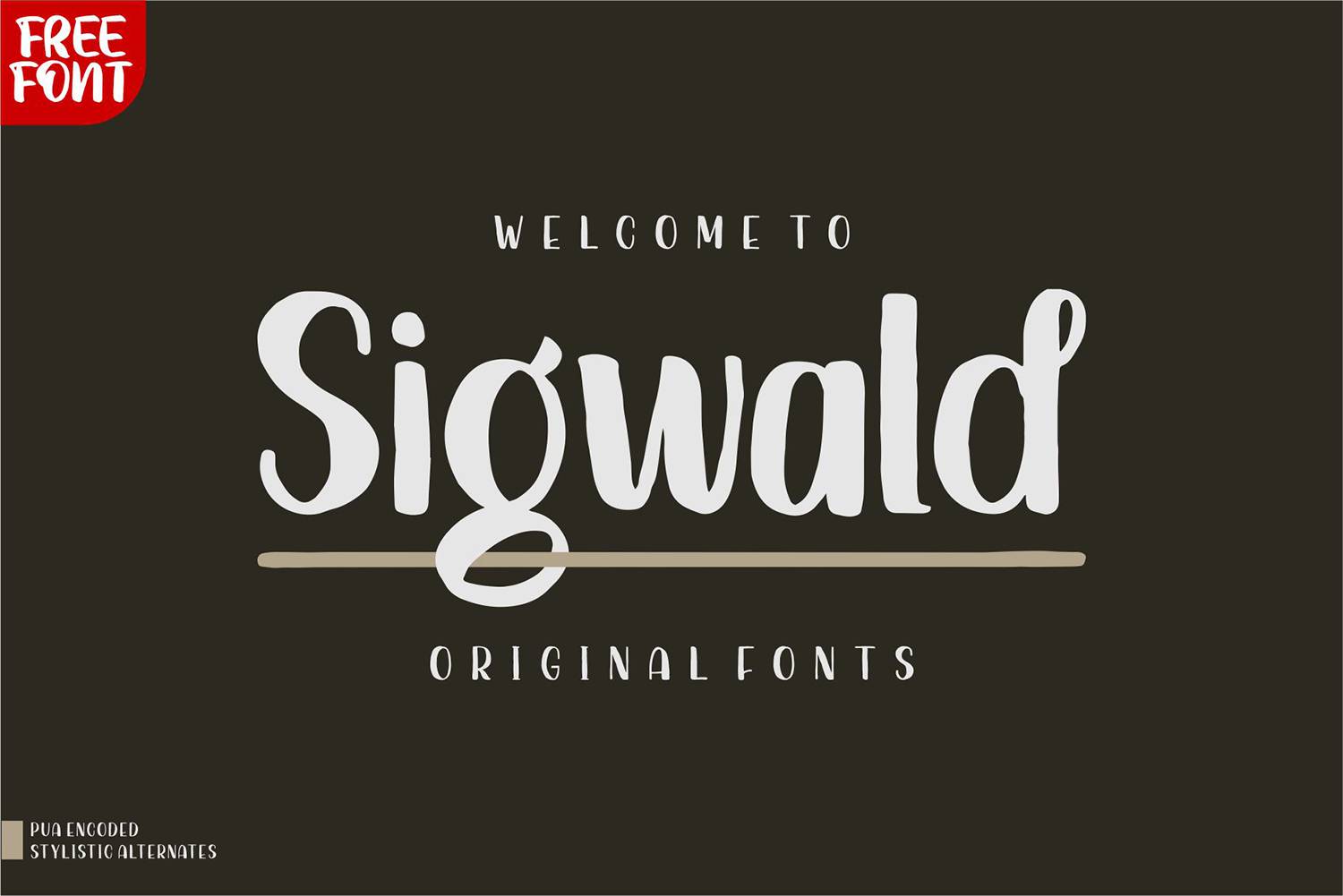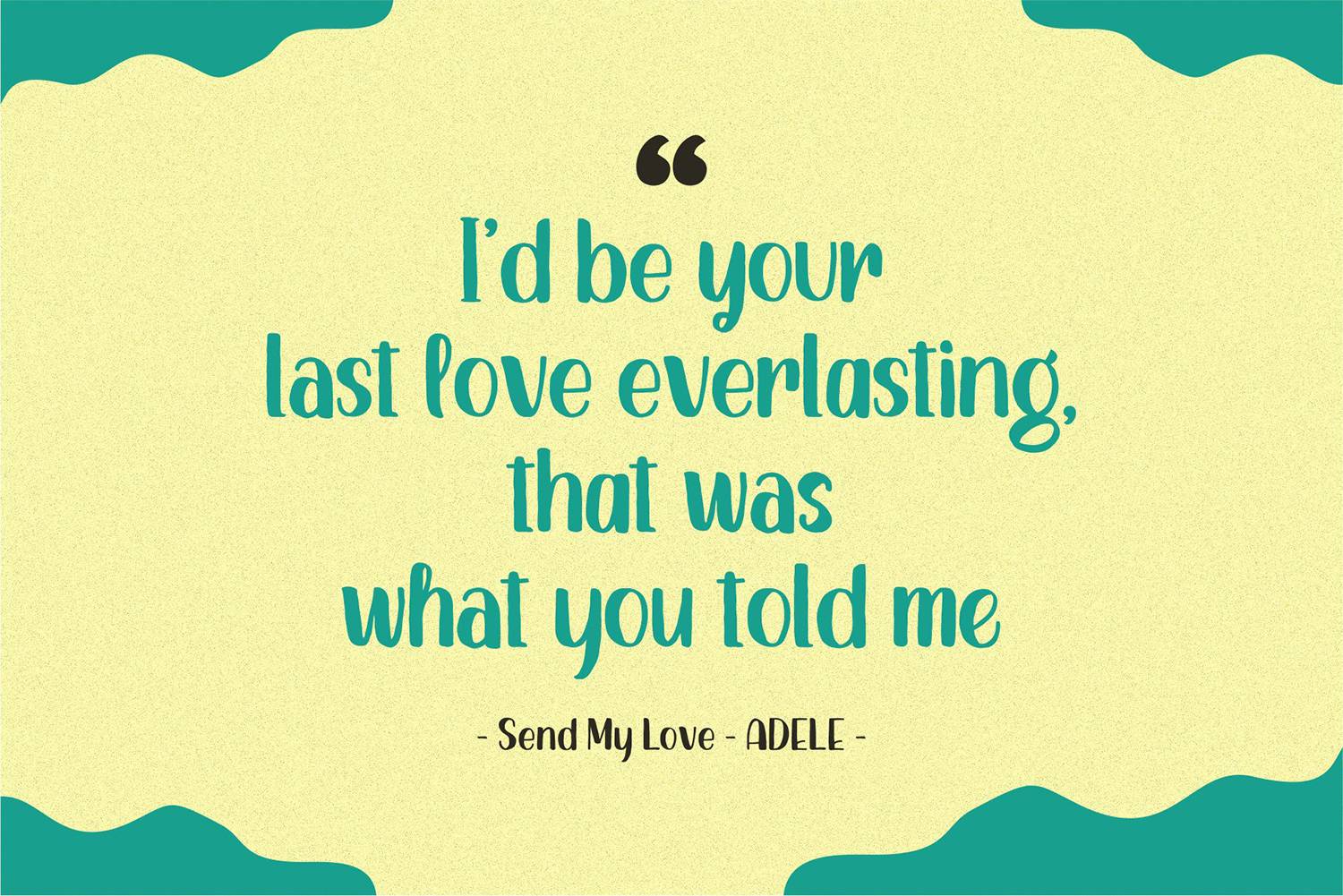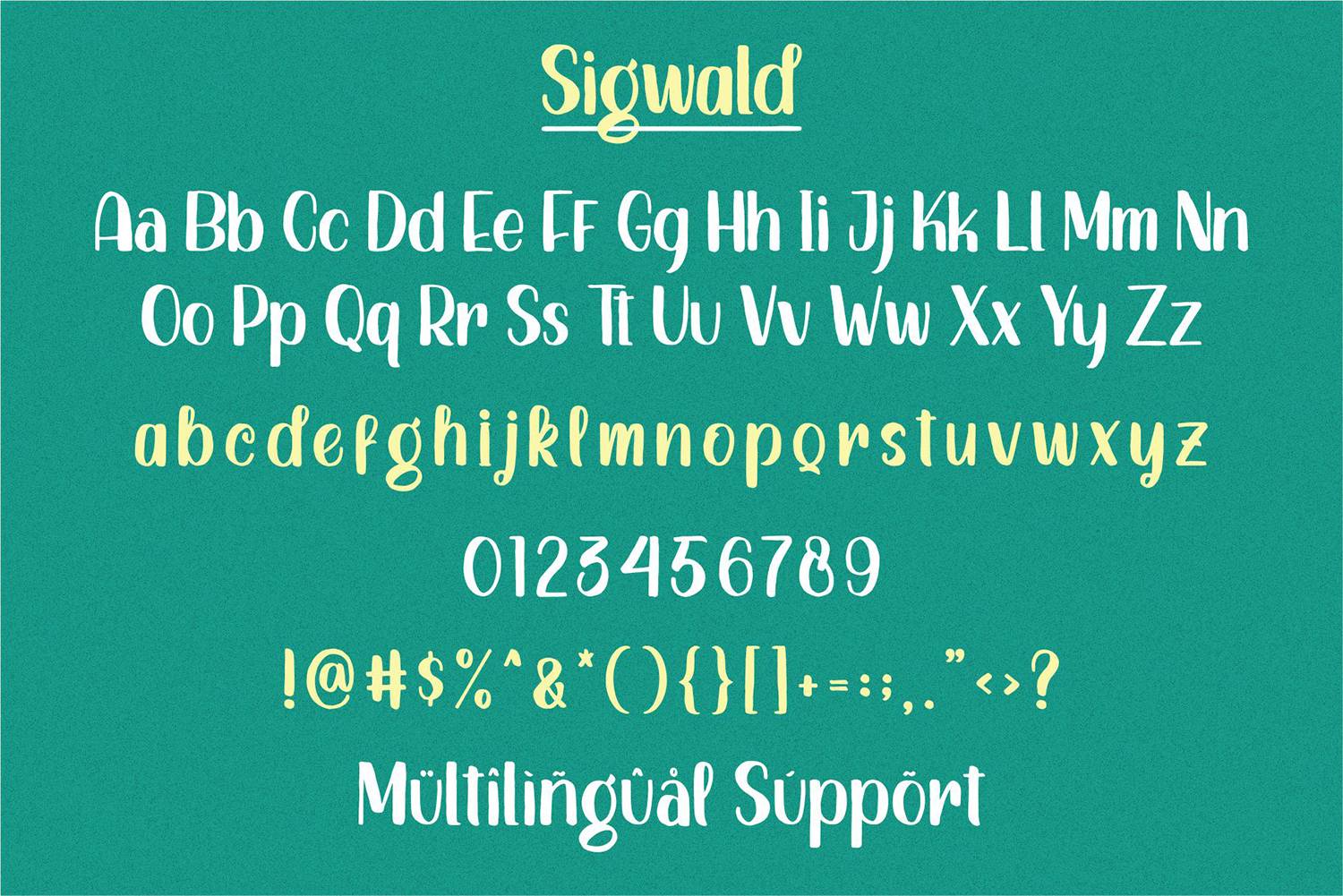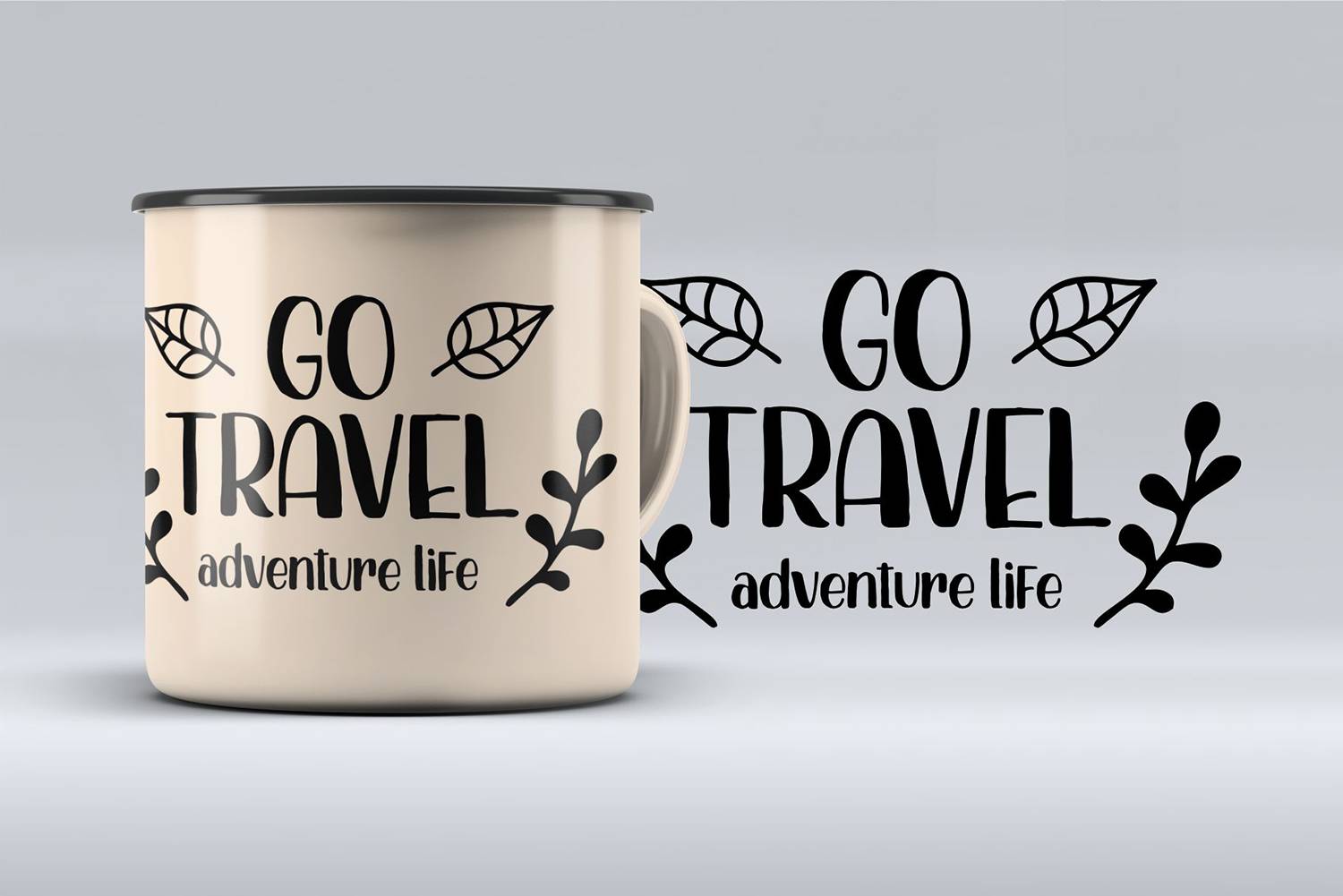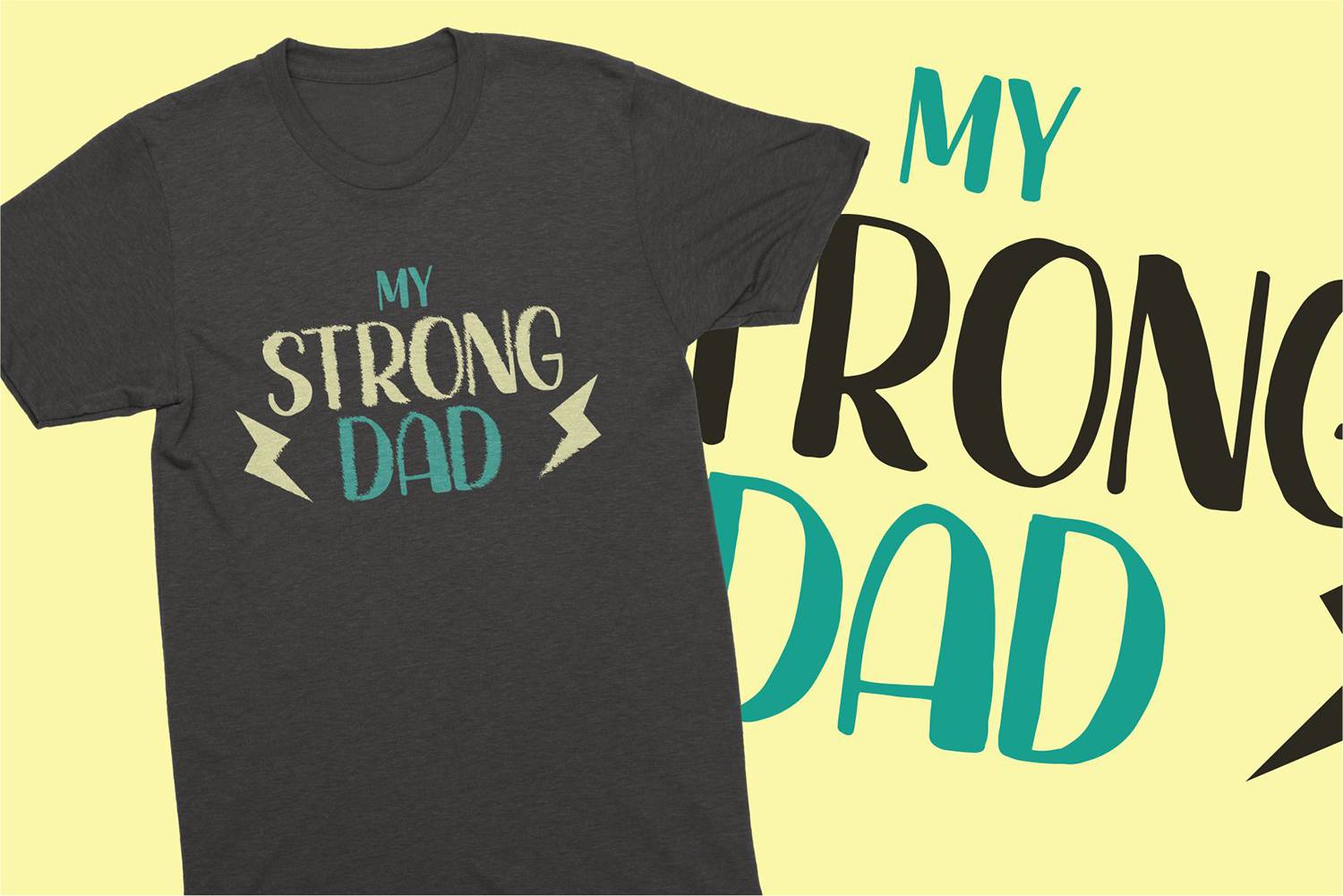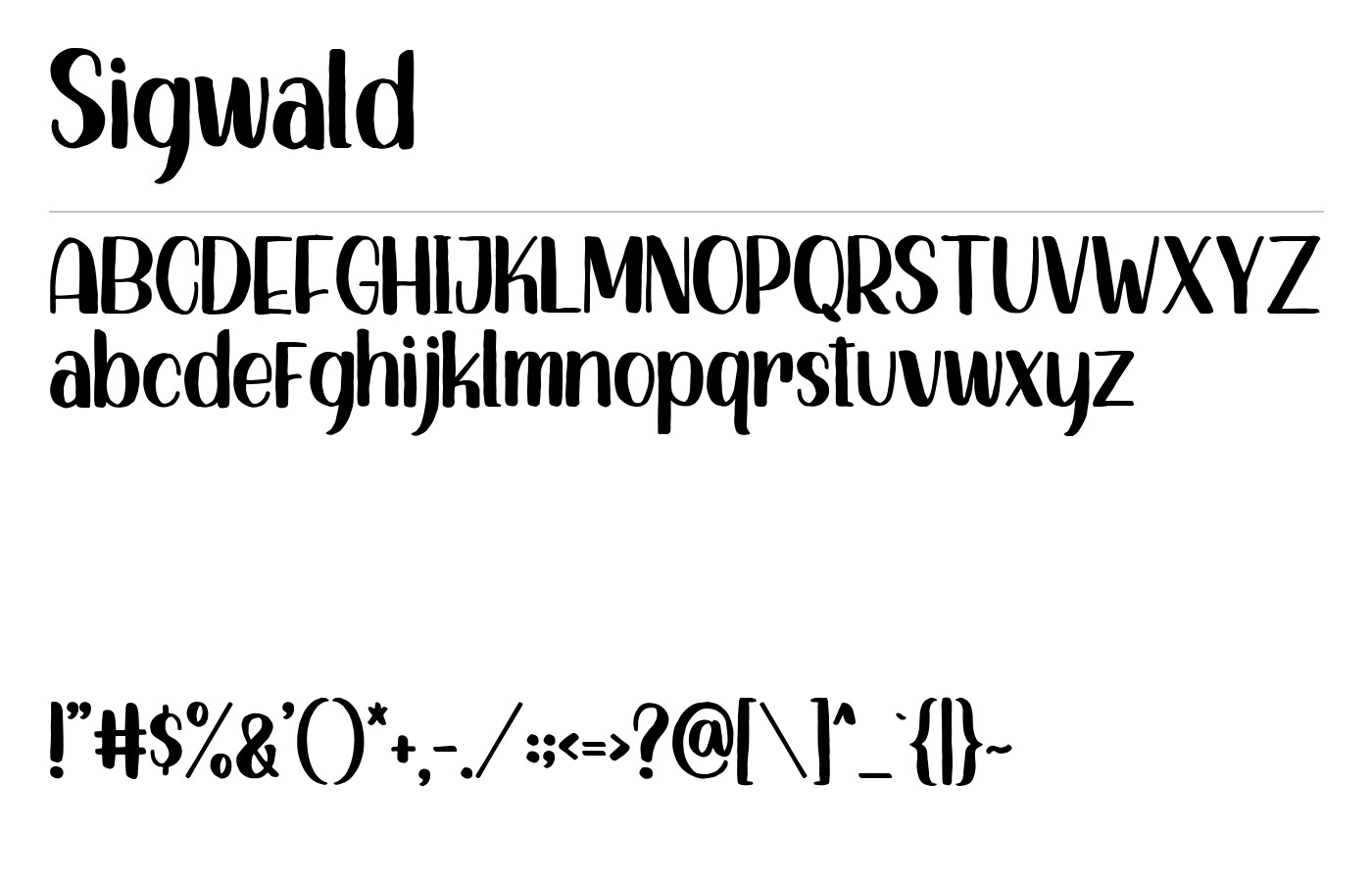
Sigwald is a playful, hand-drawn sans serif font with a casual and slightly quirky personality. Its tall, narrow letters feature consistent medium weight strokes with subtle, uneven edges that give it a charming, friendly feel perfect for creative projects, children’s materials, or informal branding. This font works well in headlines, logos, and packaging where a unique, approachable look is desired.
Sigwald Font
About Sigwald Font
| Font family | Sigwald Font |
| Designer | Good Java Studio |